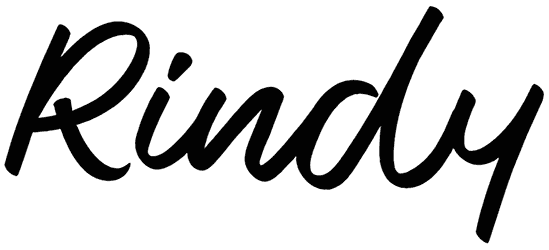
Rindy Font
The cleverness and superb quality of Rindy, a handwritten font with a pleasant appearance, cannot be overstated. It can be used for a lot of different things, such as logos, blog headlines, branding, poster designs, and…
The cleverness and superb quality of Rindy, a handwritten font with a pleasant appearance, cannot be overstated. It can be used for a lot of different things, such as logos, blog headlines, branding, poster designs, and more.